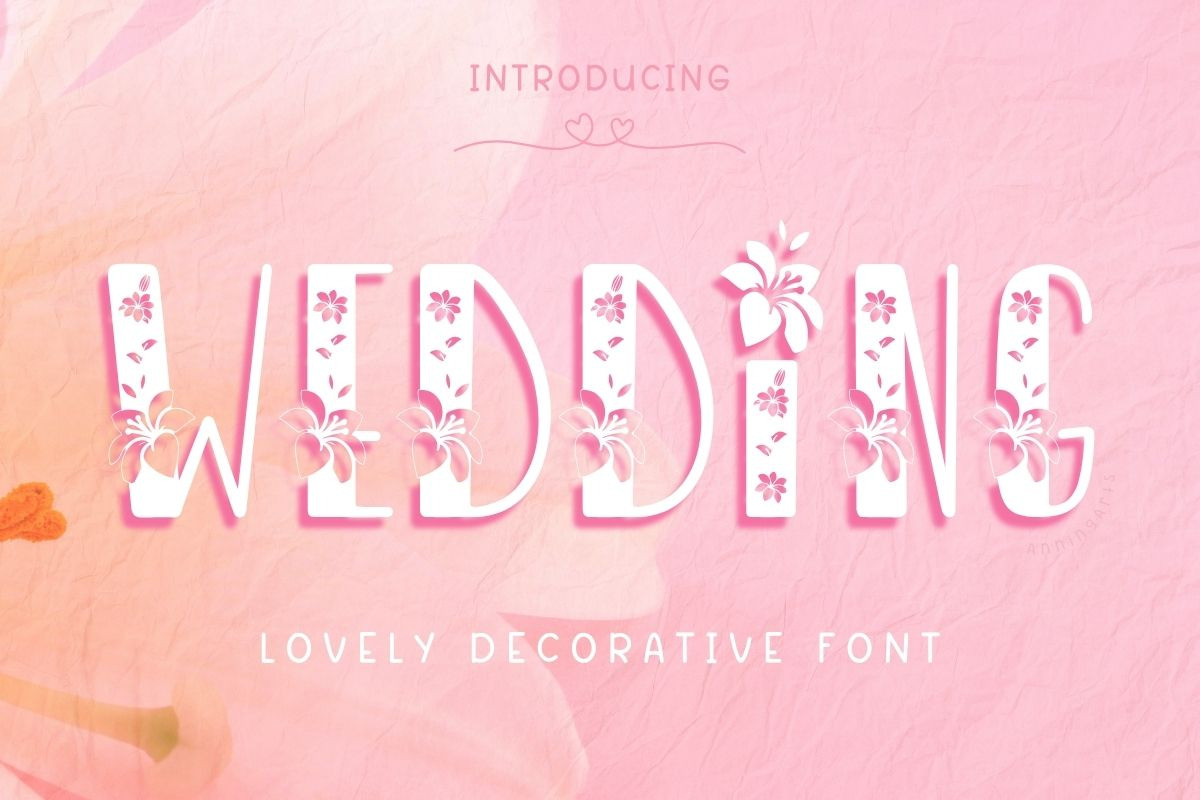
Wedding - Decorative Font
Wedding is a beautiful decorative font. Each letter is embellished with floral patterns and subtle decorative elements, which add a touch of elegance and charm. The font has a delicate and romantic style, making it perfect for creating a wide variety of designs, such as banners, content, mugs, cards, shirts, stationery, social media posts, and more!